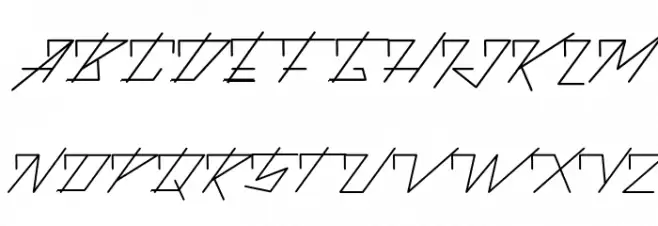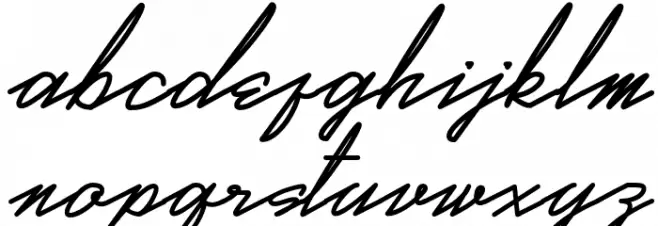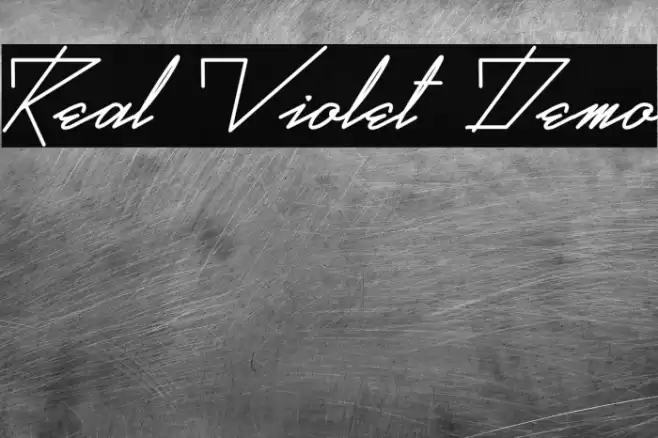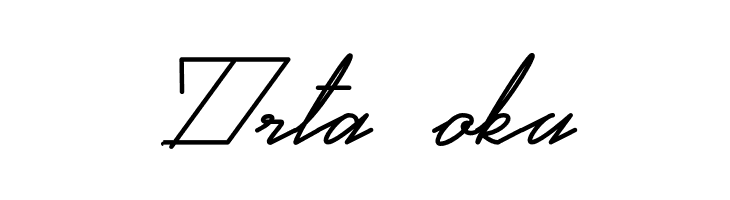
Real Violet Demo Font
Real Violet Demo Description
This font presents a unique blend of styles, featuring an angular, geometric uppercase set that contrasts sharply with a flowing, cursive lowercase. The uppercase letters are characterized by their sharp angles and linear strokes, giving them a futuristic and edgy appearance. In contrast, the lowercase letters are smooth and connected, reminiscent of elegant handwriting. This duality offers versatility, making it suitable for projects that require both modern and classic elements. The numbers and special characters follow the same stylistic cues, ensuring consistency across all glyphs.
A versatile font combining angular uppercase with cursive lowercase styles.
- Proposed Projects: Ideal for branding, logos, and creative projects that require a mix of modern and classic aesthetics.
- Use Case: Logos, Branding, Creative projects